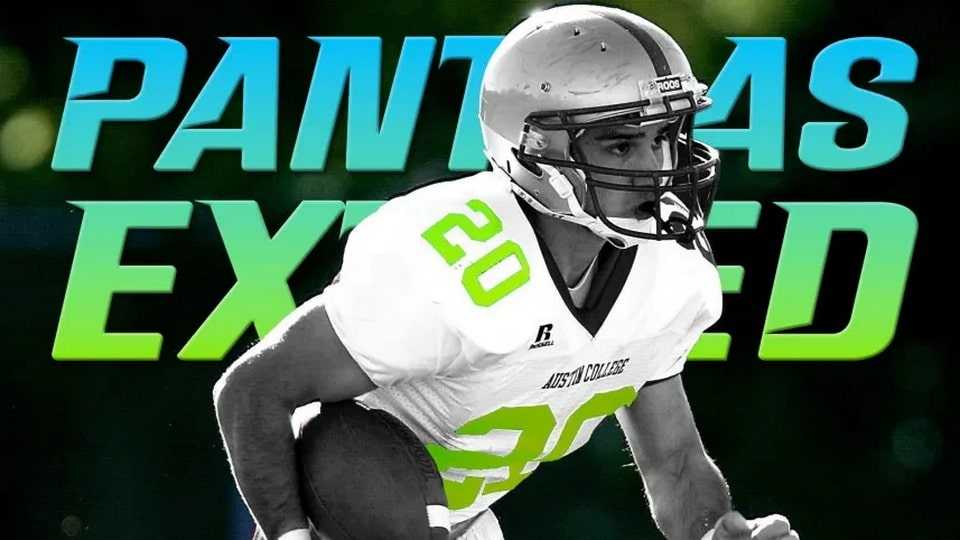
Download Pantha Extend font inspired by the Carolna Panthers brand font. Great for use on sports uniforms, sports banners and slick futuristic headinfs.